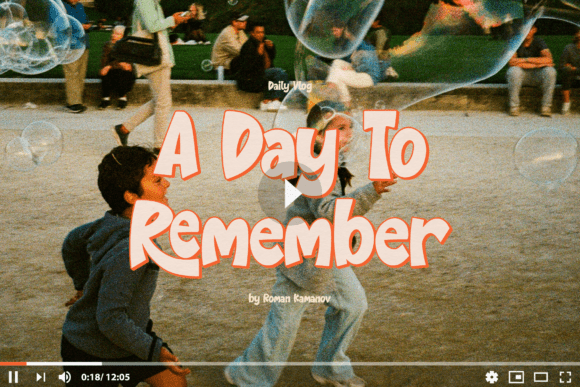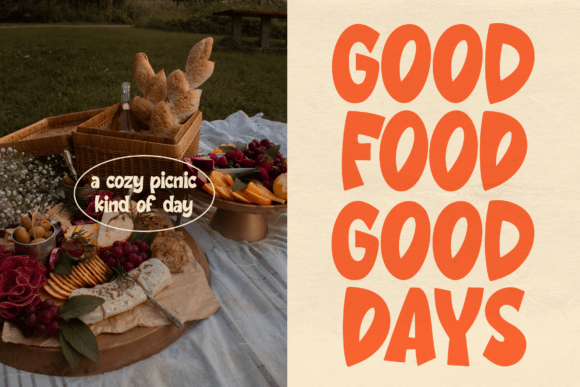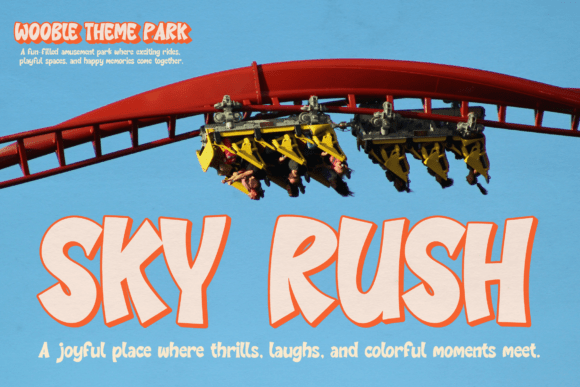
Introduction to Mister Humble Font
Mister Humble is a vibrant, energetic, and unapologetically fun display typeface that brings a retro-modern punch to your creative projects.
Characterized by its chunky, irregular letterforms and a charmingly “wobbly” aesthetic, this font captures the essence of 1970s psychedelic design reimagined for today It features a massive library of over 300+ glyphs, including creative ligatures and alternates that allow you to customize every word for a truly handcrafted feel.
Why Choose Mister Humble Font?